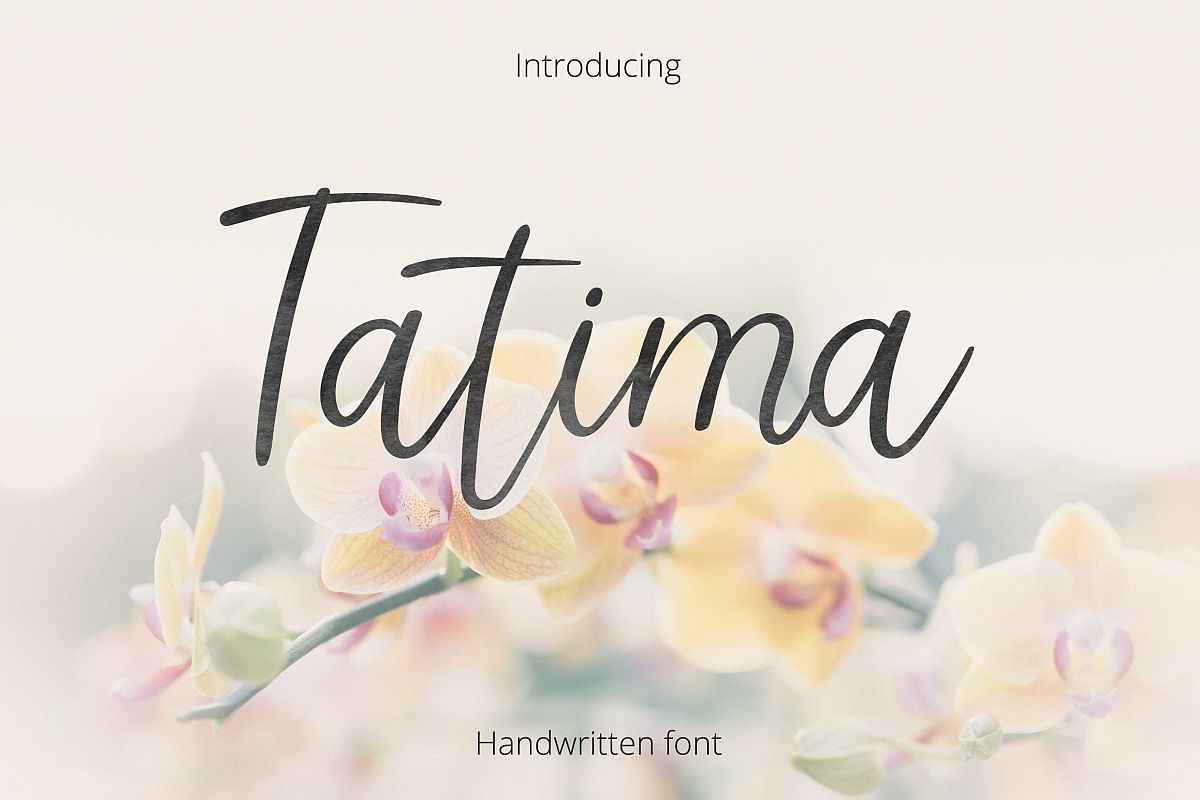
Tatima. Handwritten font.
Introducing Tatima handwritten font in modern calligraphy style.
This trendy elegant brush font will allow to create awesome branding materials, beautiful logos, cards, quotes, wedding invitations, overlays, presentations and any other interesting projects.